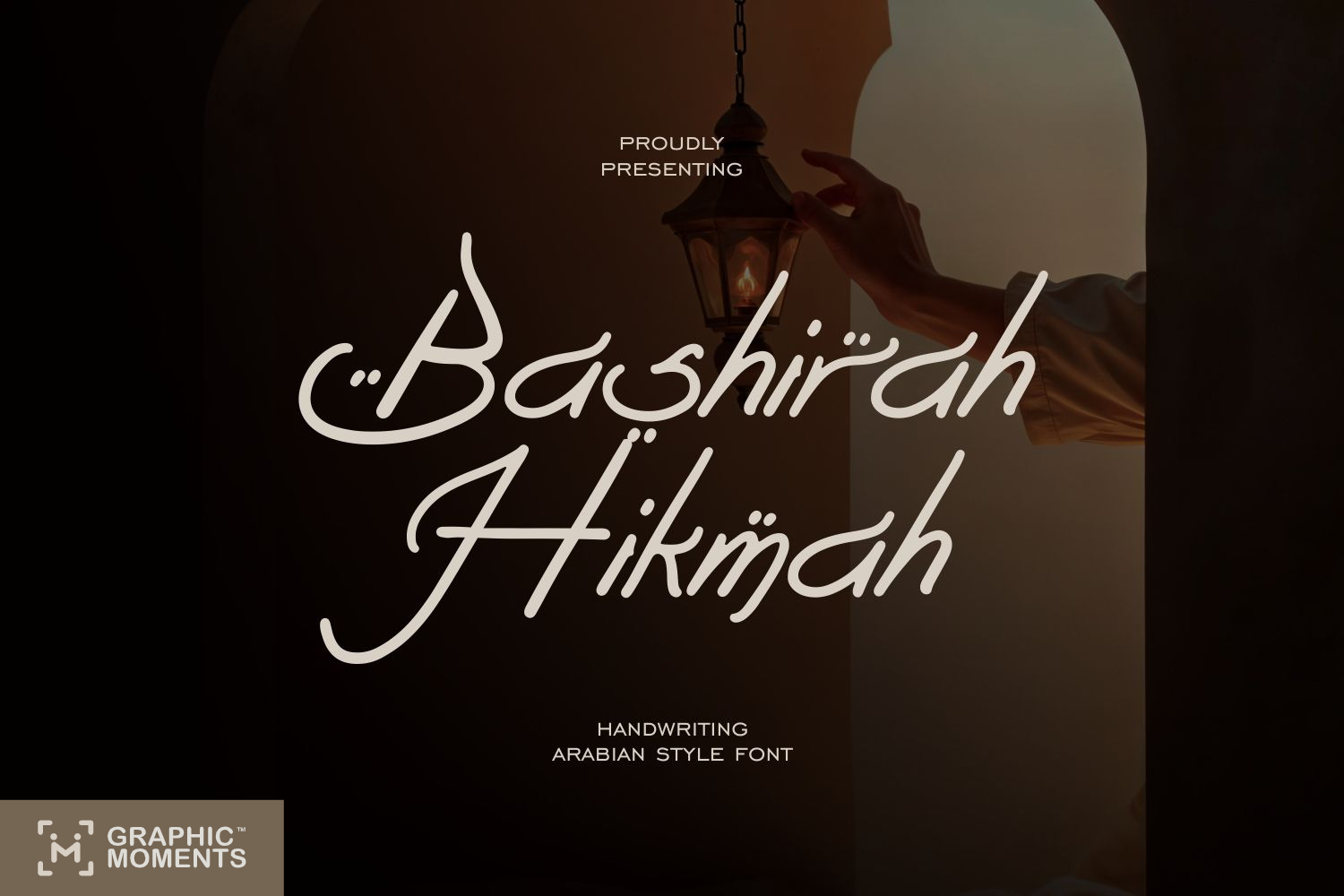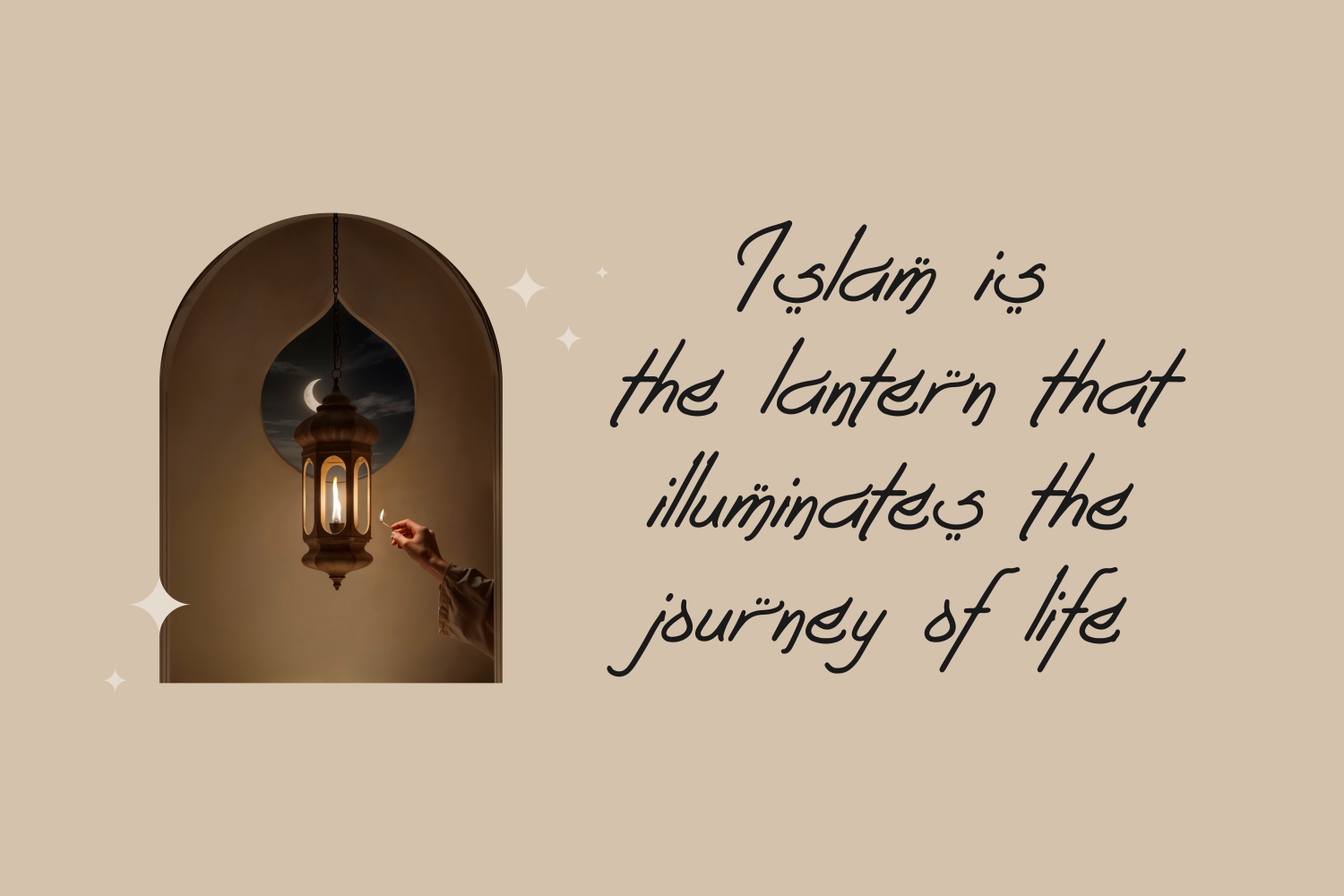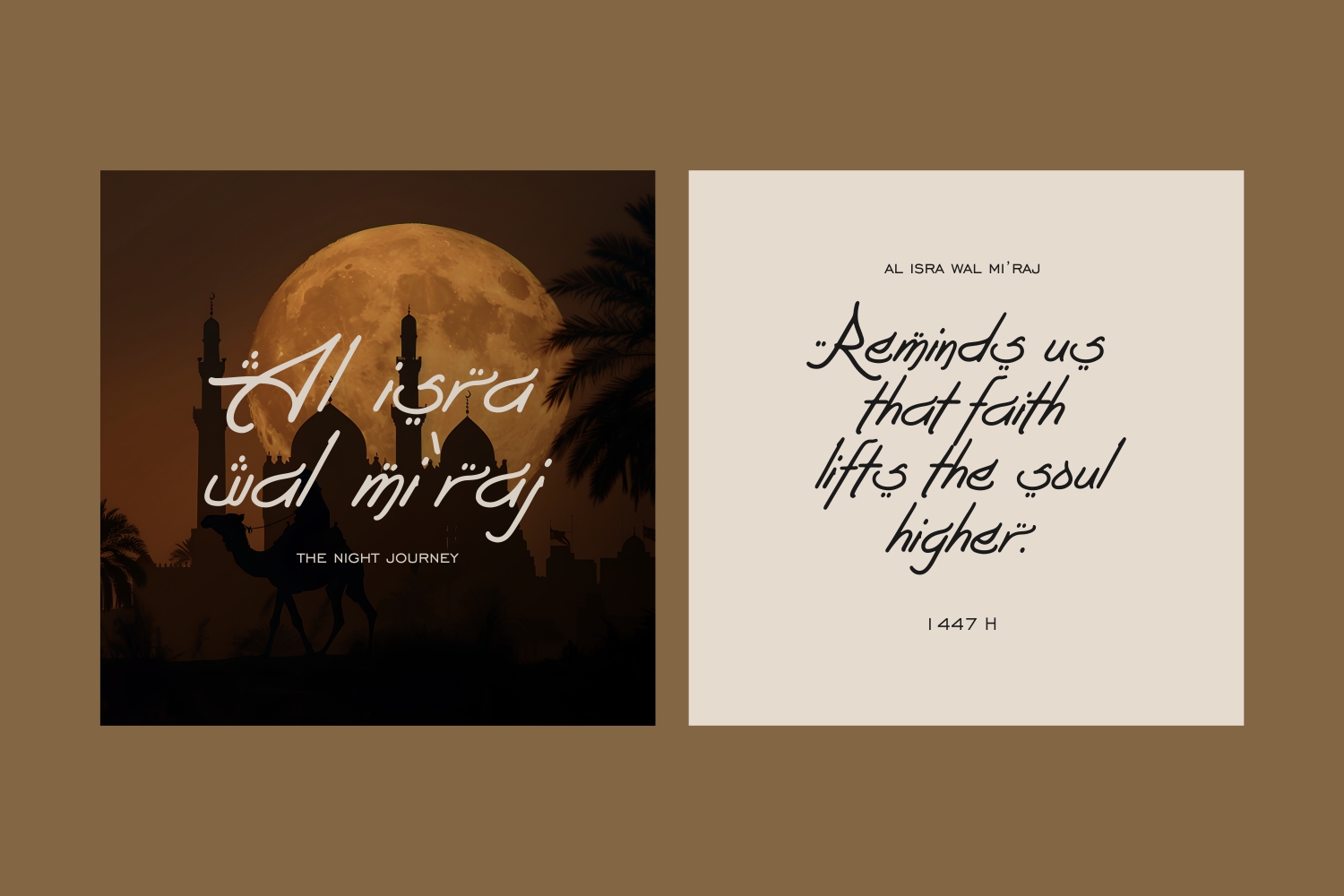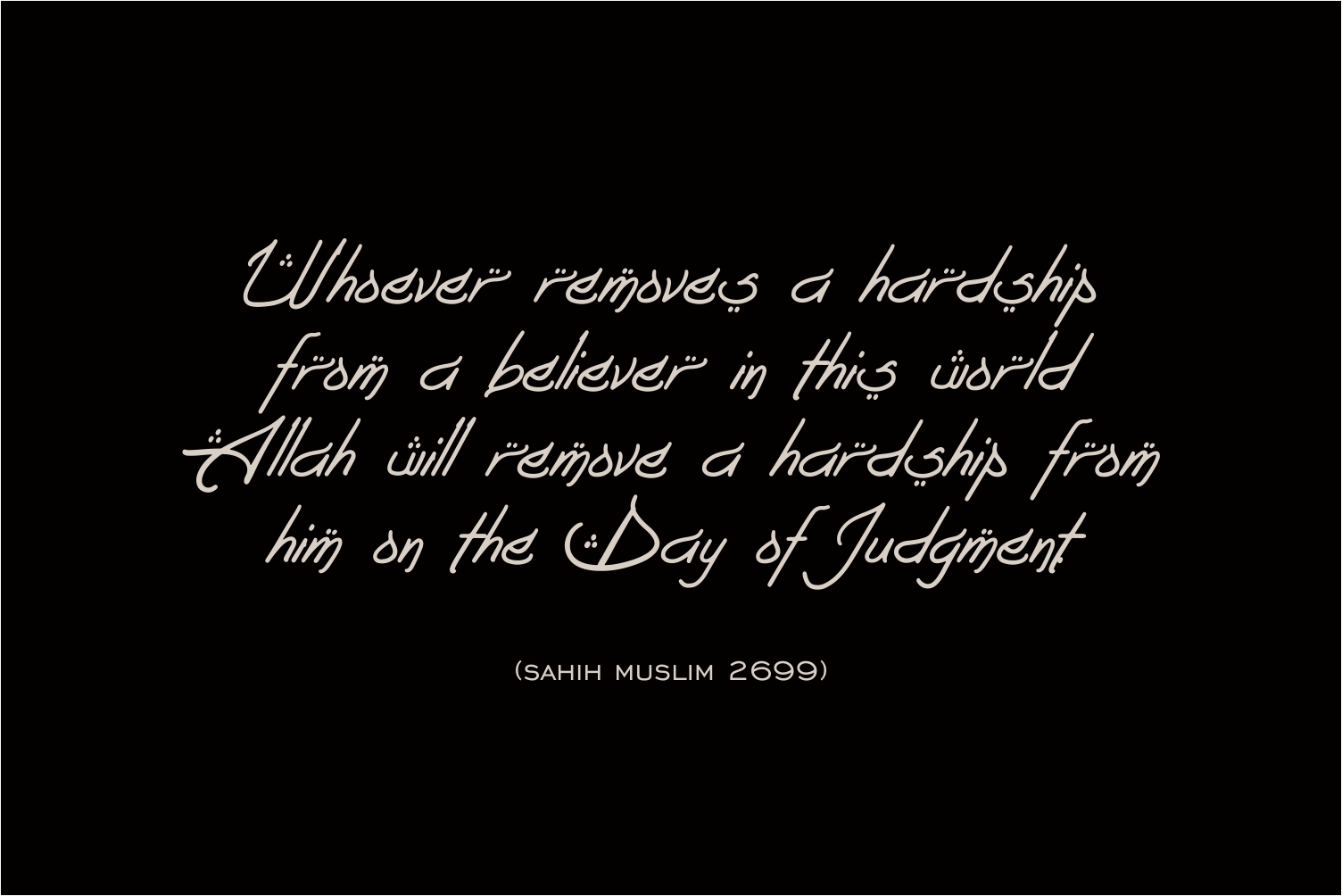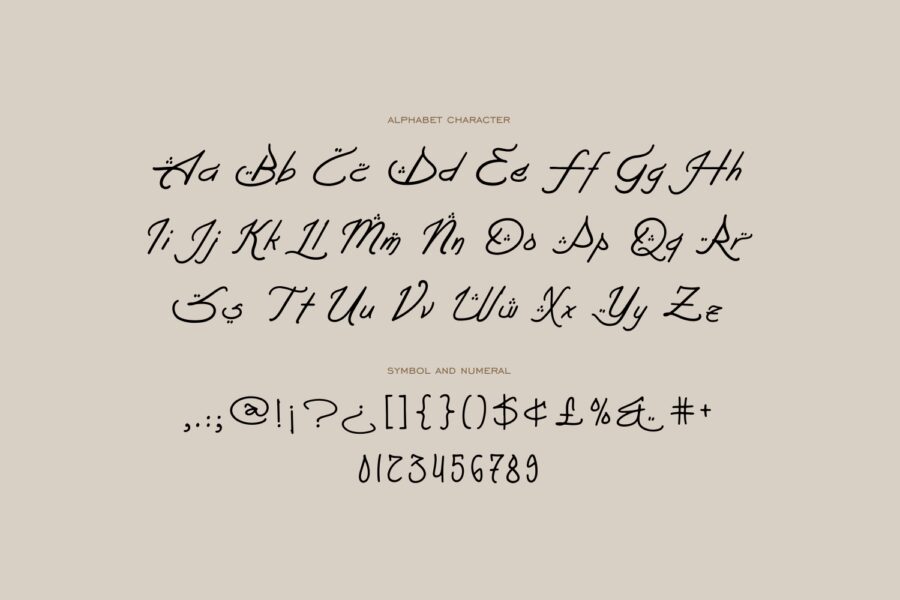
Bashirah Hikmah is an elegant and sophisticated display font that draws inspiration from traditional Arabic calligraphy. Its fluid, flowing strokes and subtle decorative elements give it a refined and artistic feel. This handwriting-style font is perfect for adding a touch of grace and cultural depth to your designs, making it suitable for a wide range of creative projects, from branding to social media.
The font’s aesthetic makes it an excellent choice for themes related to Islam and the Middle East, such as invitations for religious events, greeting cards, and social media posts featuring quotes or verses. Its legibility and stylish appearance also allow it to be used effectively for headlines, logos, and packaging where a unique, handcrafted look is desired. Bashirah Hikmah stands out as a versatile and beautiful font that combines traditional calligraphic artistry with modern design sensibilities.
Bashirah Hikmah